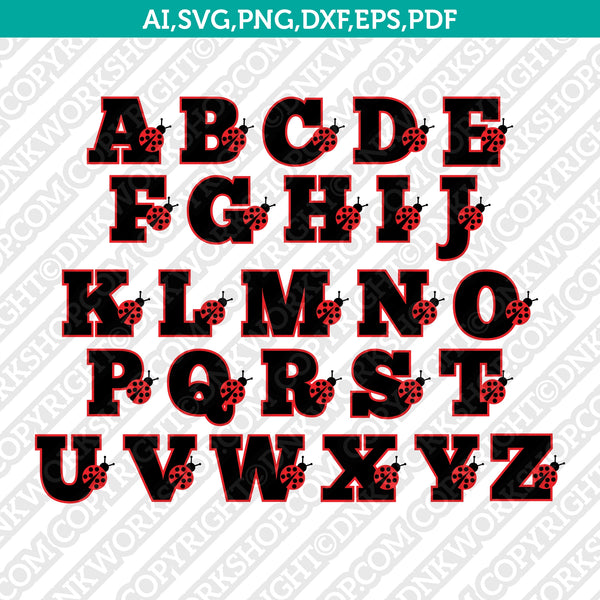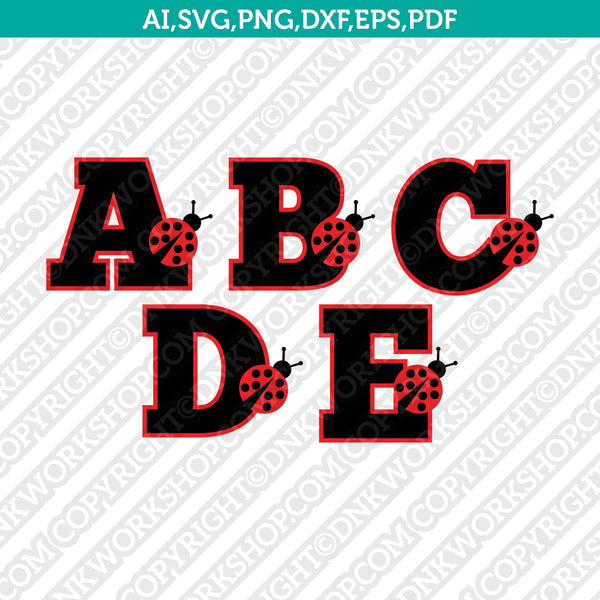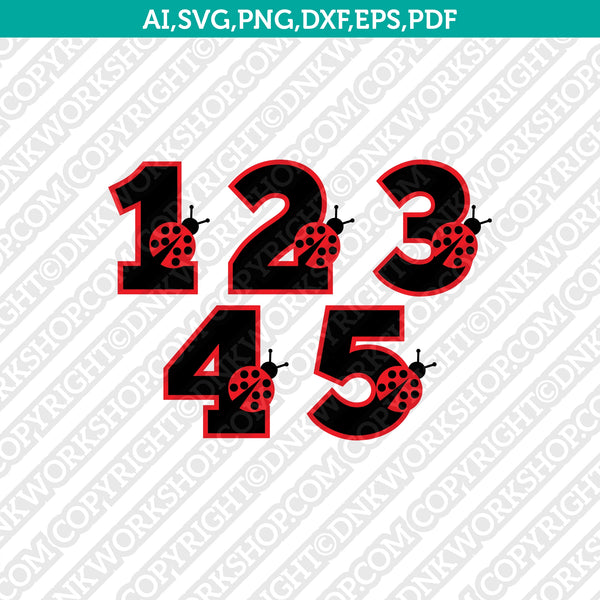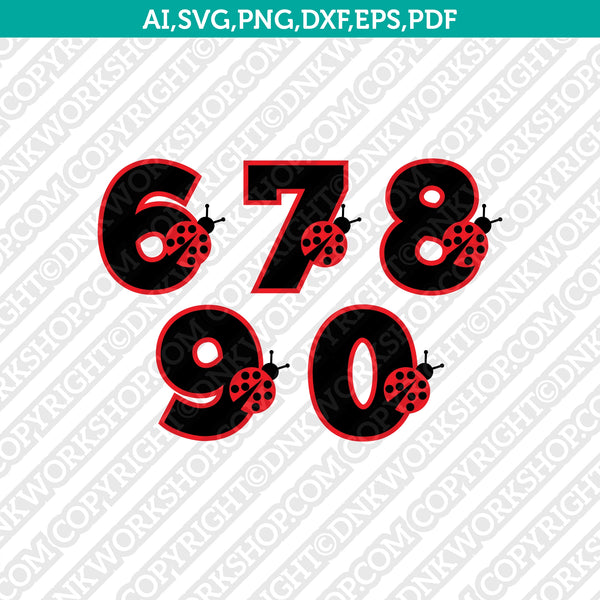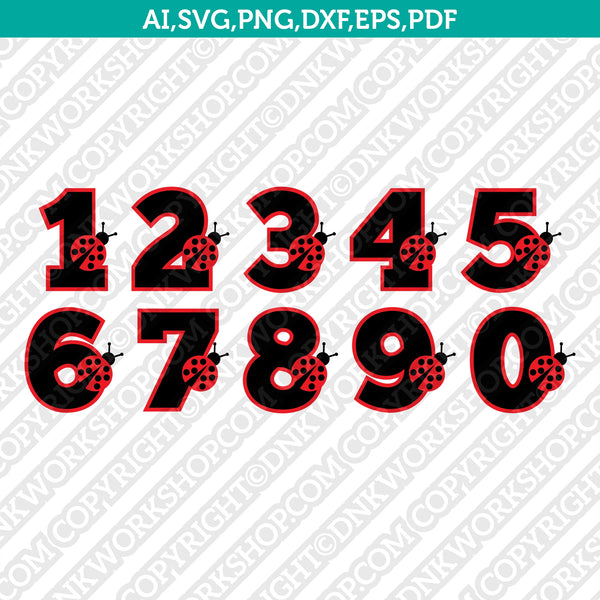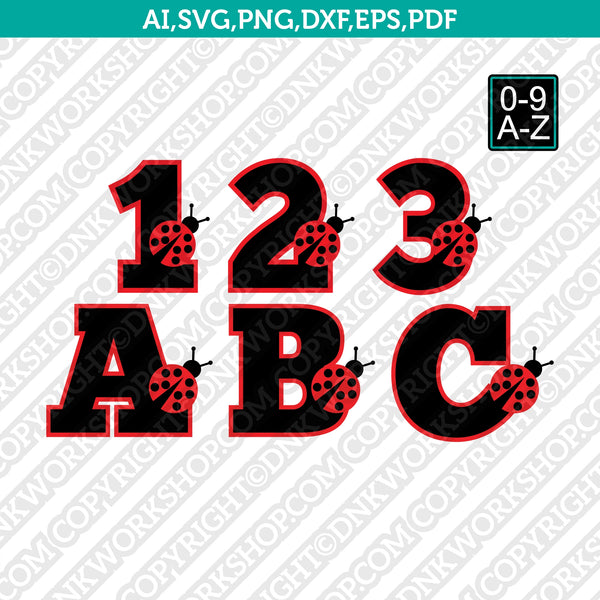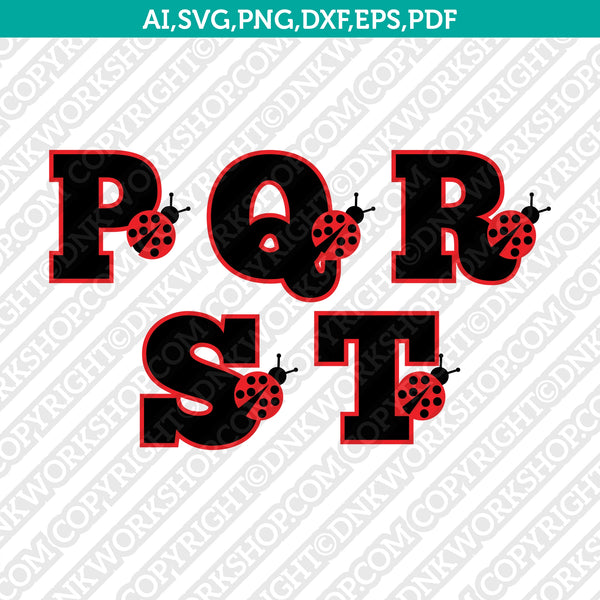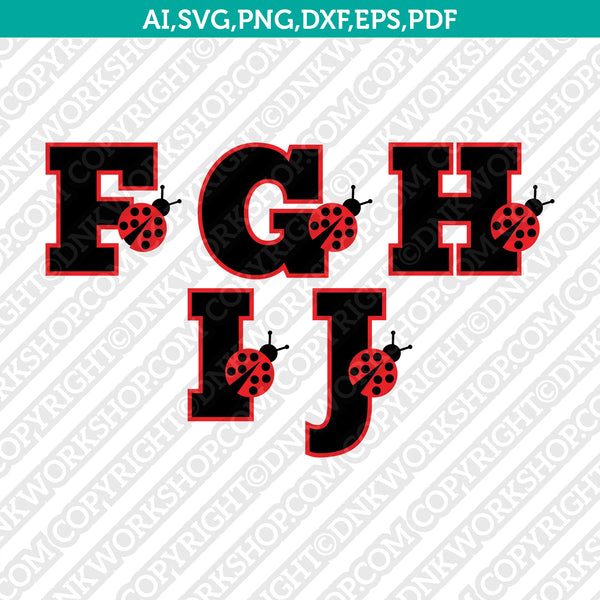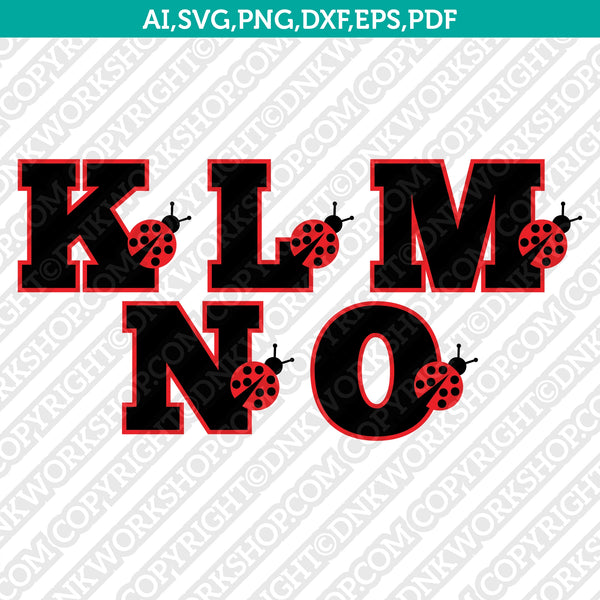
Ladybug Alphabet & Number Bundle (0–9 + A–Z) SVG Vector – Cute Insect Letters for Cricut & Silhouette
This Ladybug Alphabet & Number Bundle includes a complete set of numbers 0–9 and uppercase letters A–Z decorated with adorable ladybug elements. The bold letter shapes combined with playful insect details make this set perfect for kids-themed, nature-inspired, and cute craft projects.